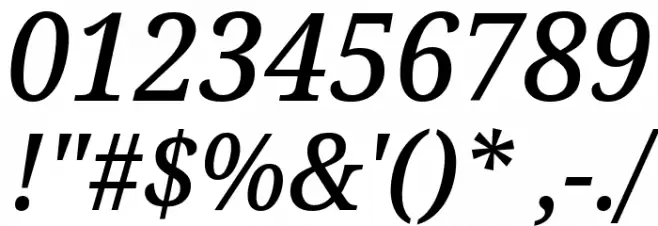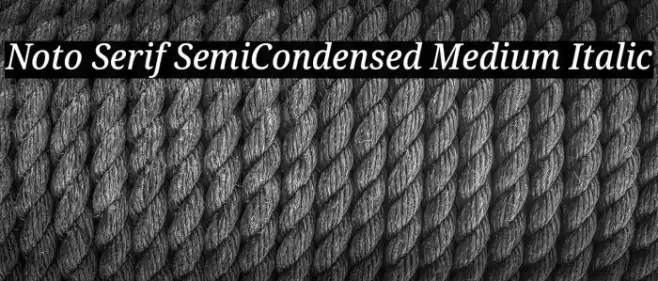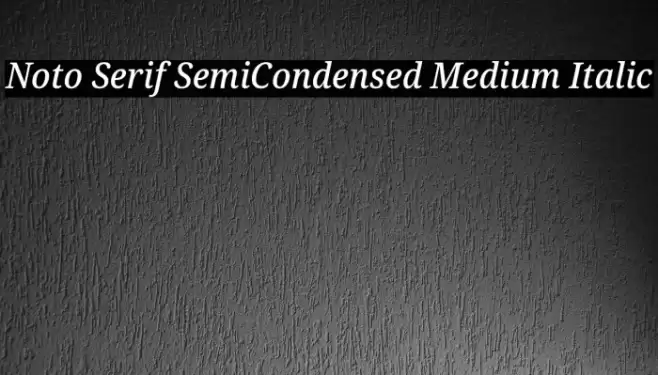
Noto Serif SemiCondensed Medium Italic Font
Noto Serif SemiCondensed Medium Italic Description
This serif typeface features a semi-condensed structure with medium weight, offering a balanced and elegant appearance. The italic style adds a touch of sophistication, making it suitable for formal and professional settings. The characters exhibit a moderate contrast in stroke thickness, enhancing readability while maintaining a classic aesthetic. The font's design includes smooth curves and sharp serifs, providing a harmonious blend of tradition and modernity. Its versatility allows it to be used in various contexts, from editorial design to branding projects.
A semi-condensed, medium-weight serif font with an elegant italic style from Uncategorized fonts.
- Proposed Projects: Ideal for editorial design, book covers, branding, and formal invitations.
- Overall Style: Classic